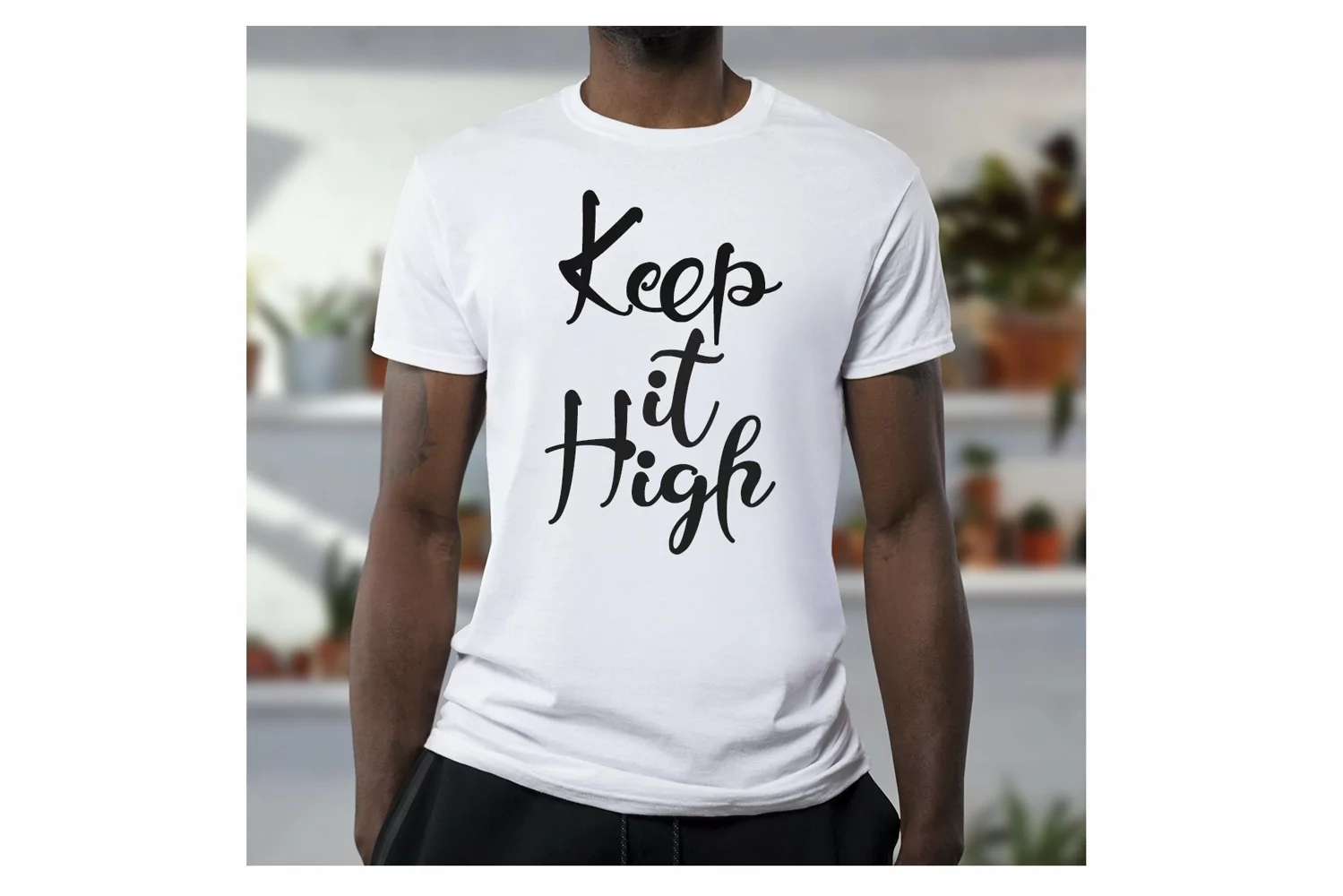
Beautiful Handwritten
Jaggielka Font was created by Ahmad Afandi (Letterafa Studio). It has flowing letters that will give your designs a unique and sweet look. Jaggielka font is perfect; greeting cards, a package design, a brand identity, craft design, any DIY project, book title, wedding invitation, packaging, and more.